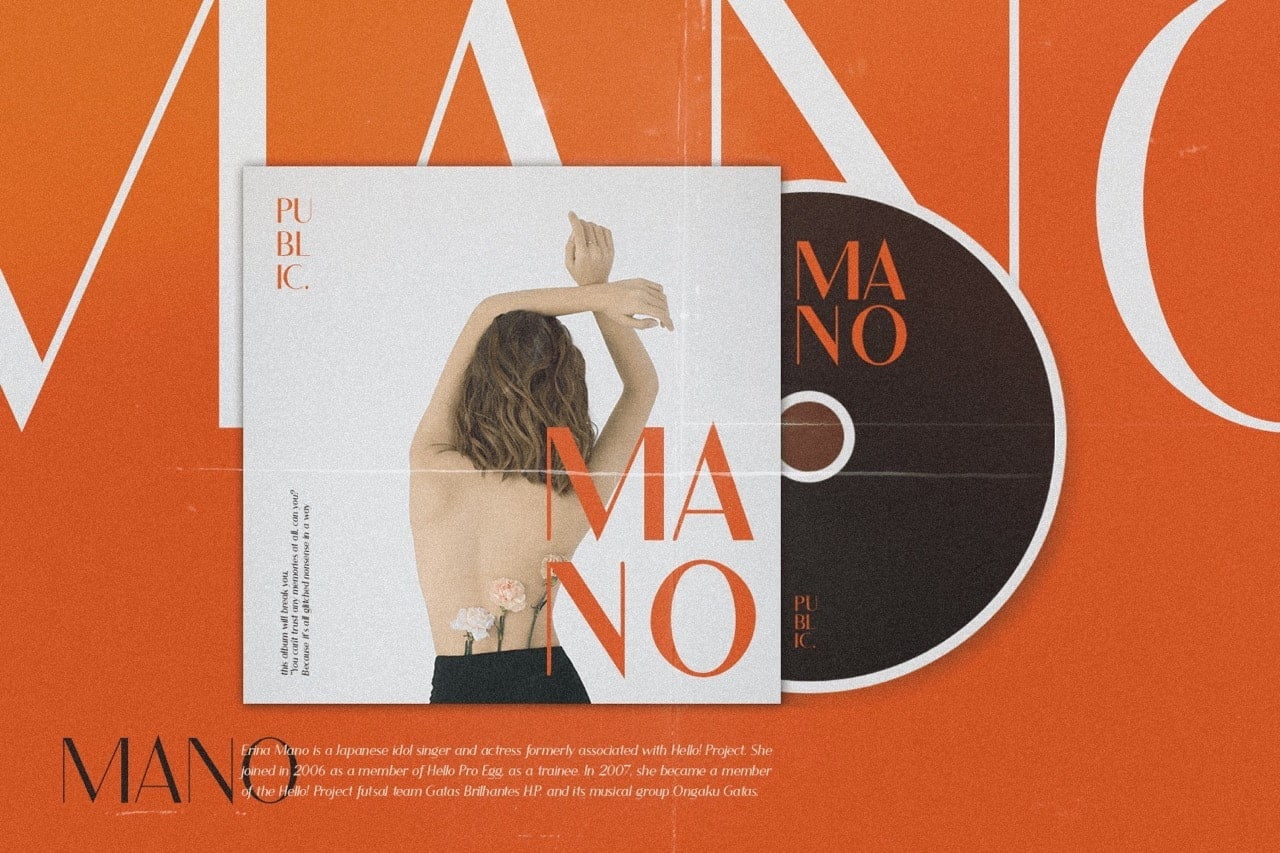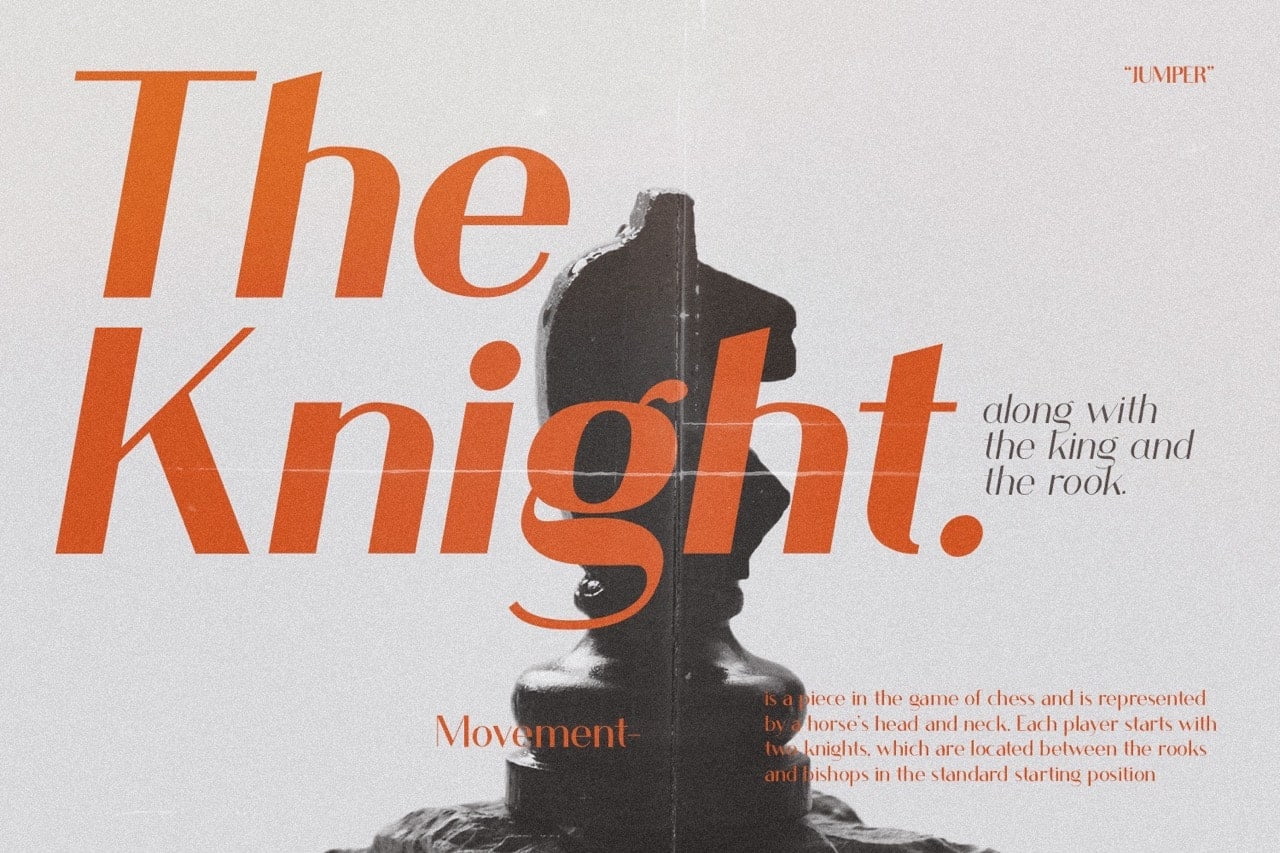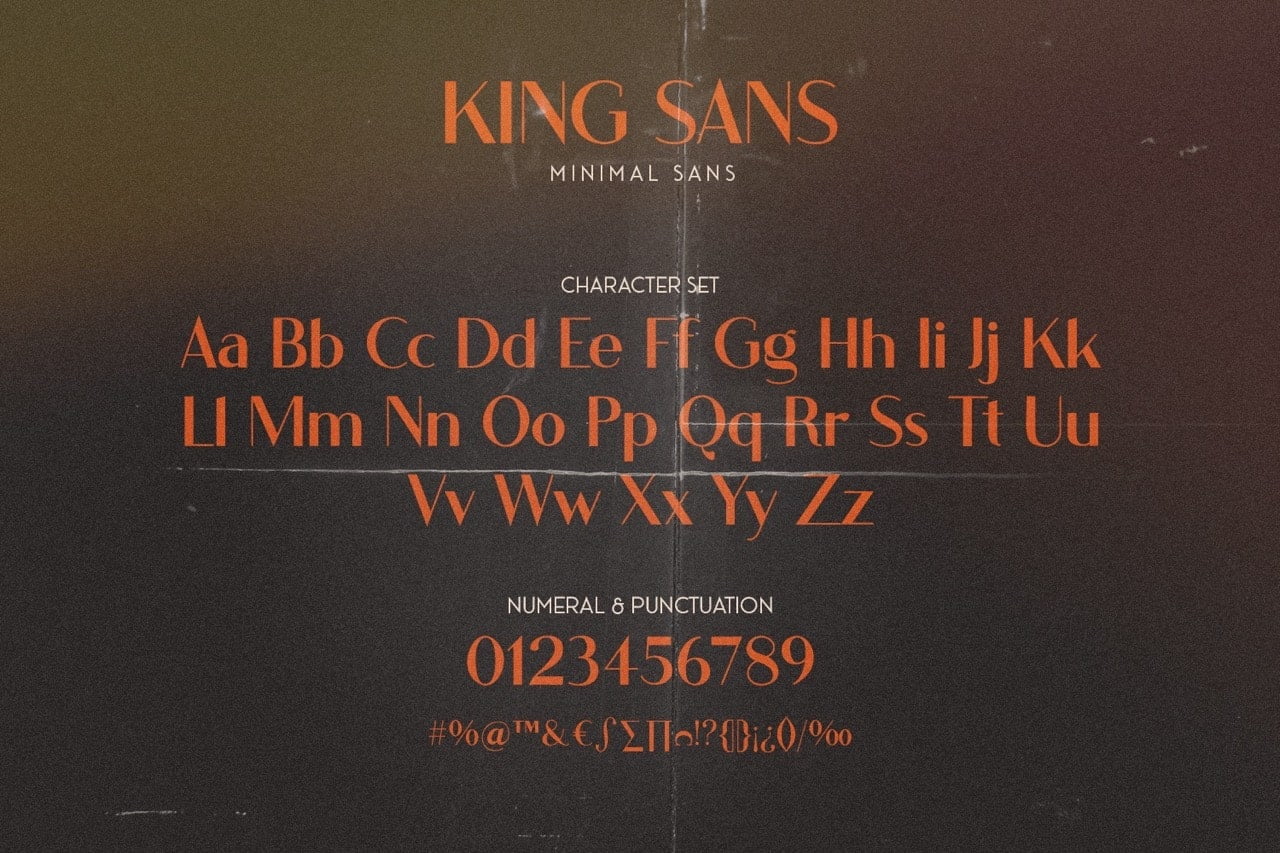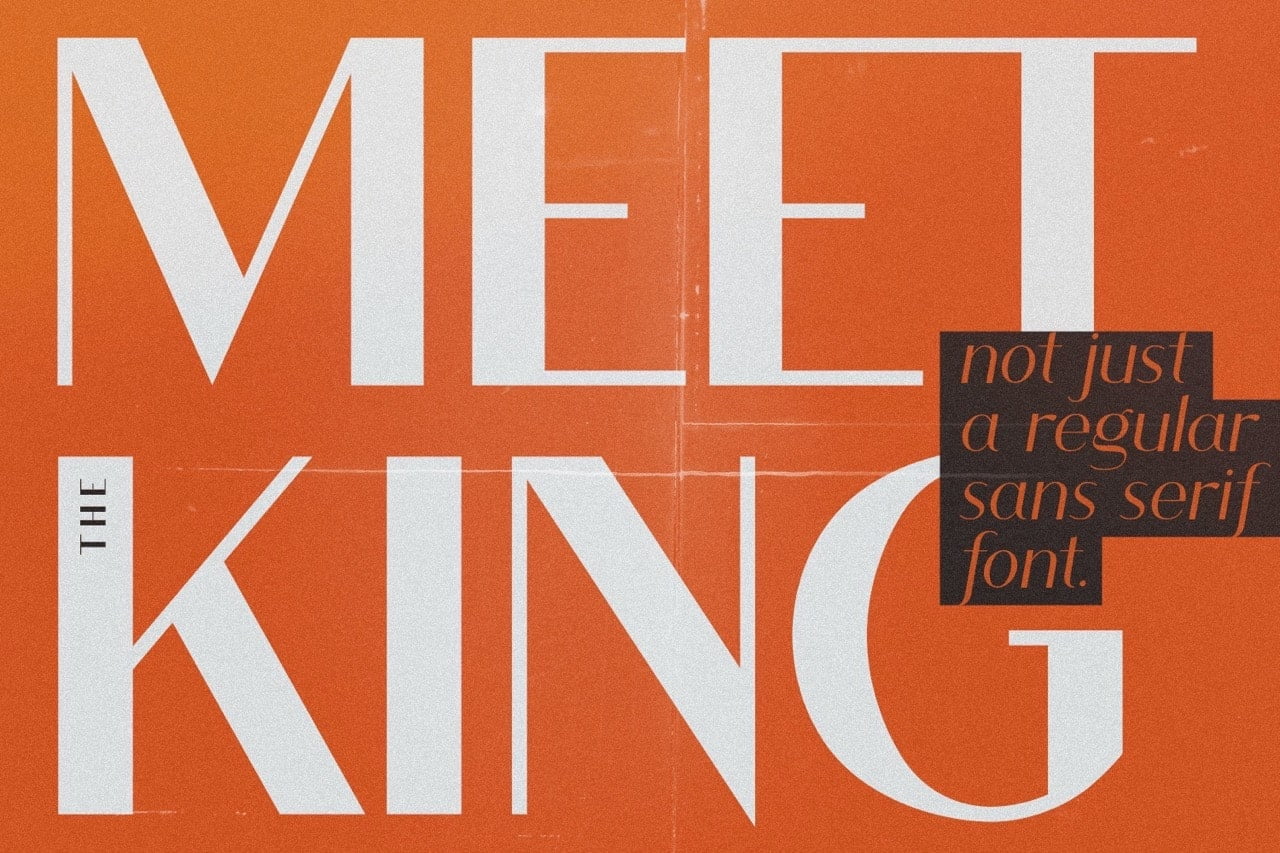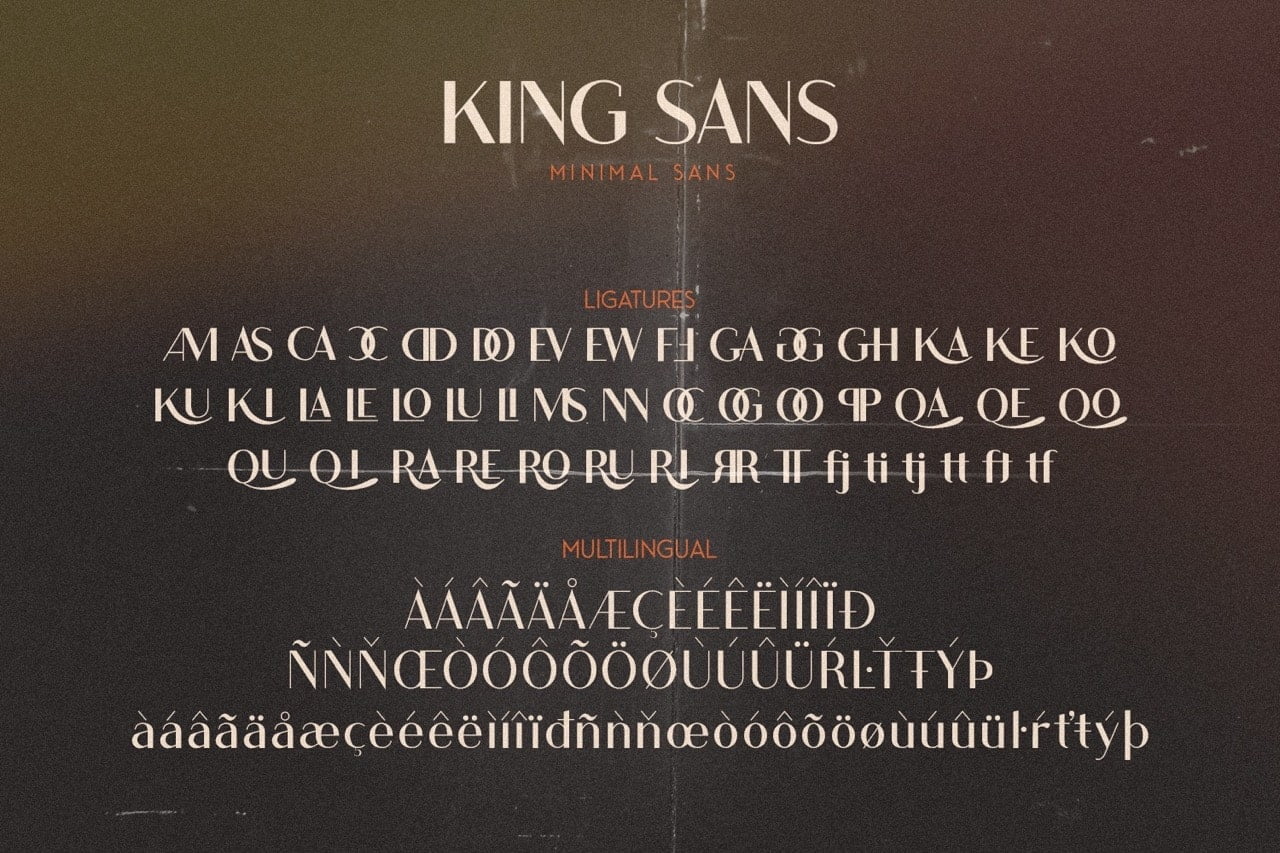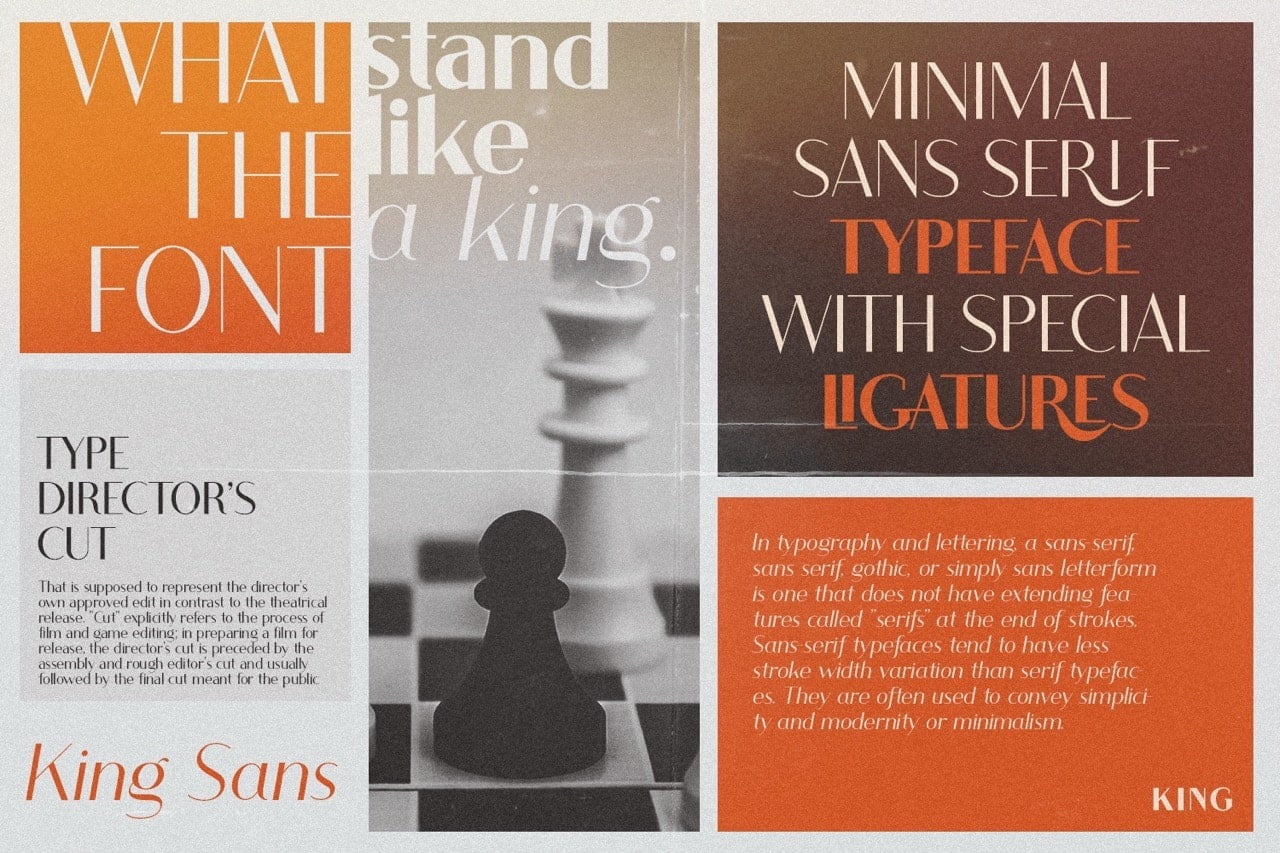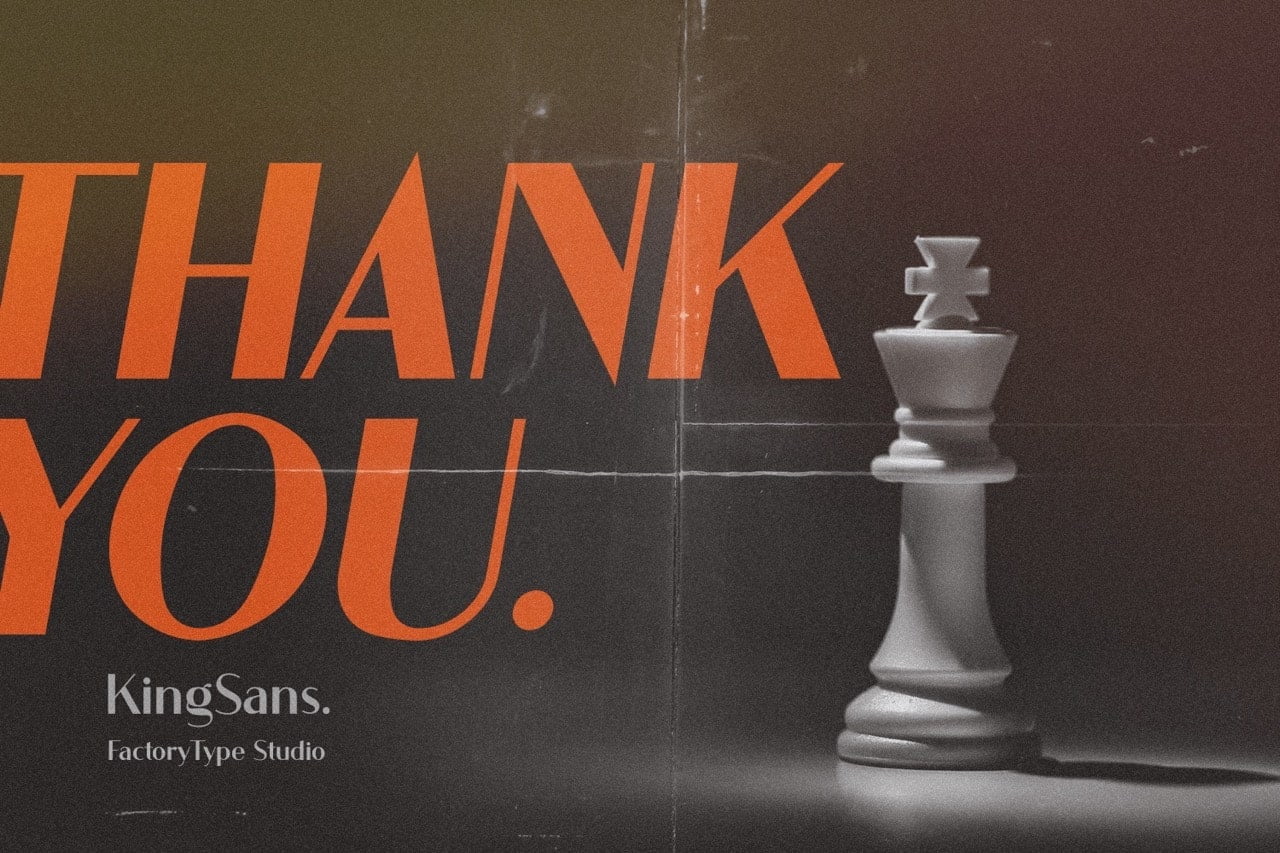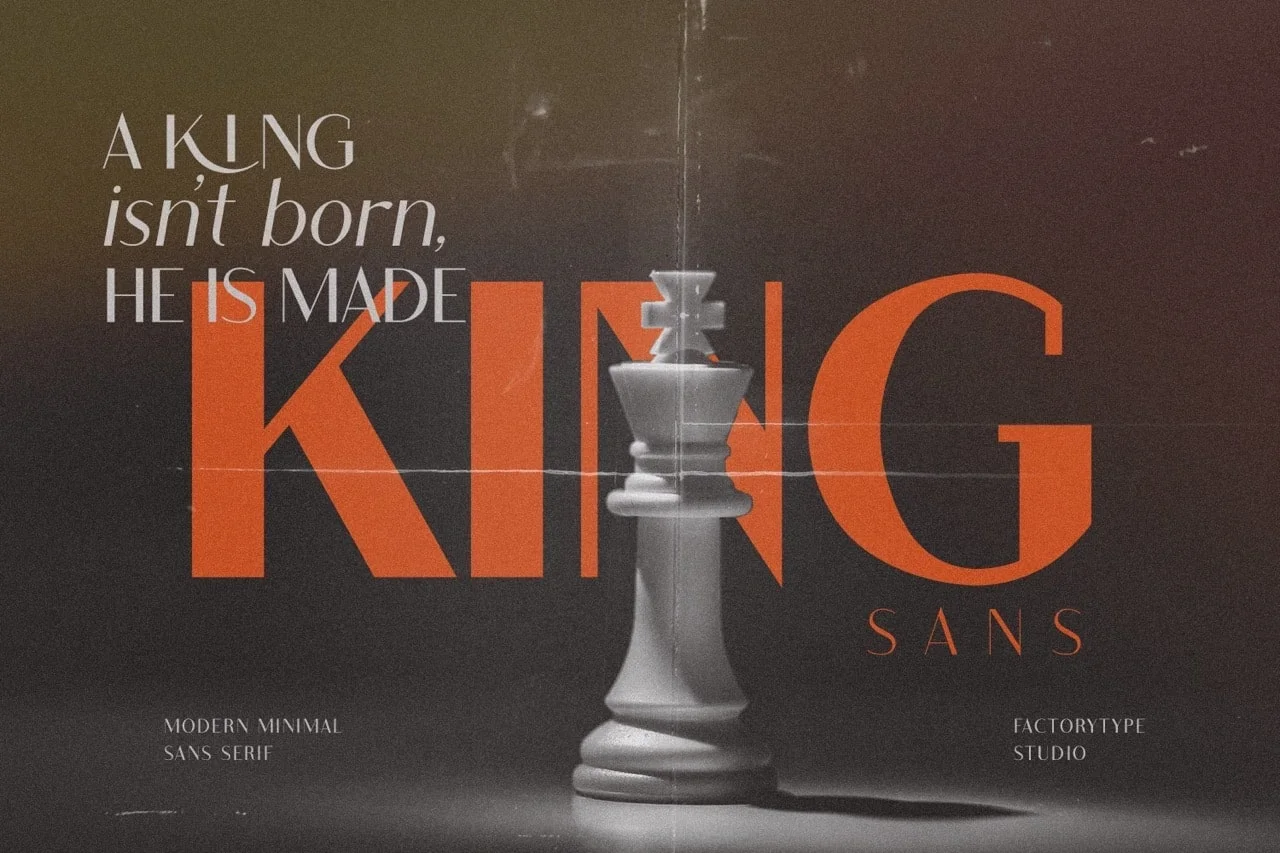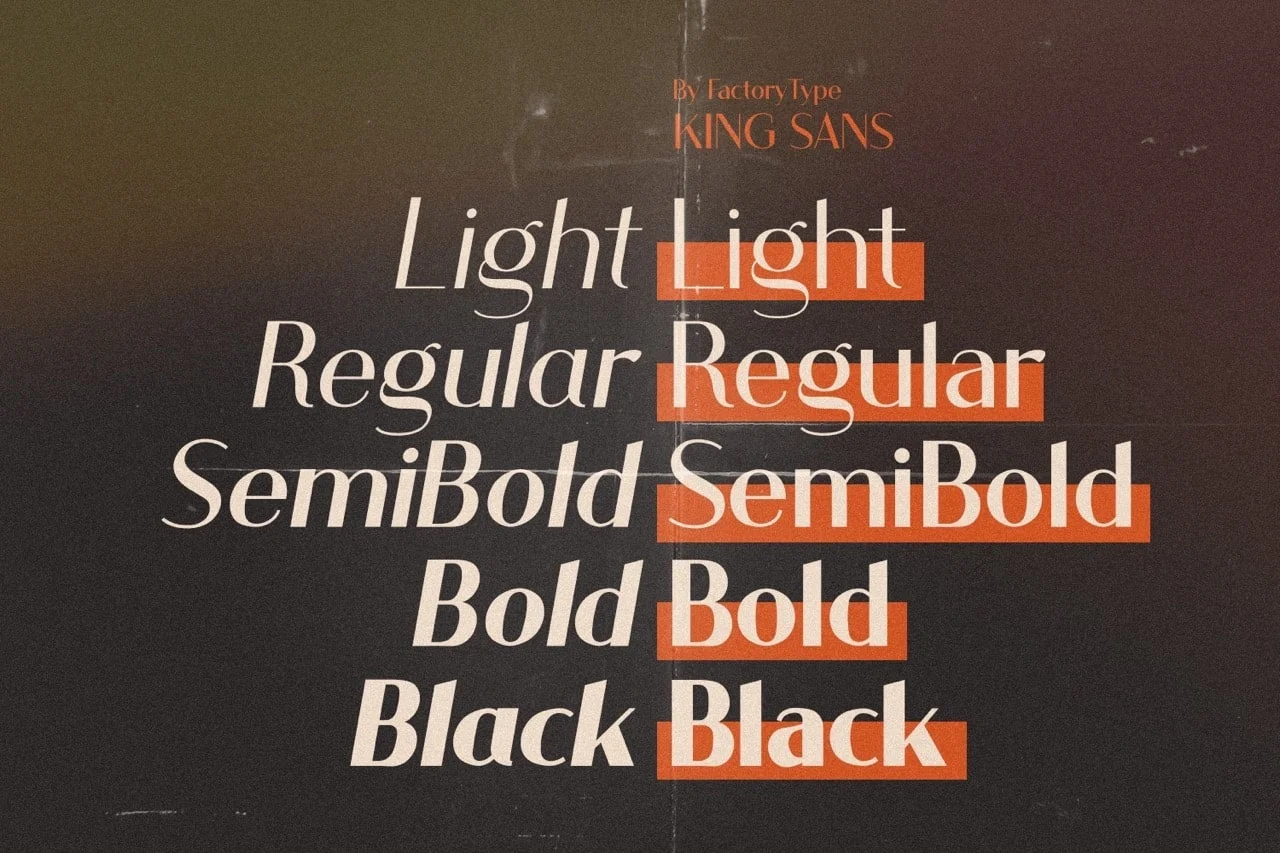
King Sans is a trendy, modern sans serif font that is perfect for design projects. The casual and minimal style make this typeface well-suited for logos, retro or modern branding, or any other design need you may have.
- 5 Weights
- 2 Styles (Regular and Italic)
- Basic Latin A-Z and a-z
- Numerals & Punctuation
- Stylistic Ligatures and Alternate Glyphs
- Multilingual Support for ä ö ü Ä Ö Ü …
King Sans